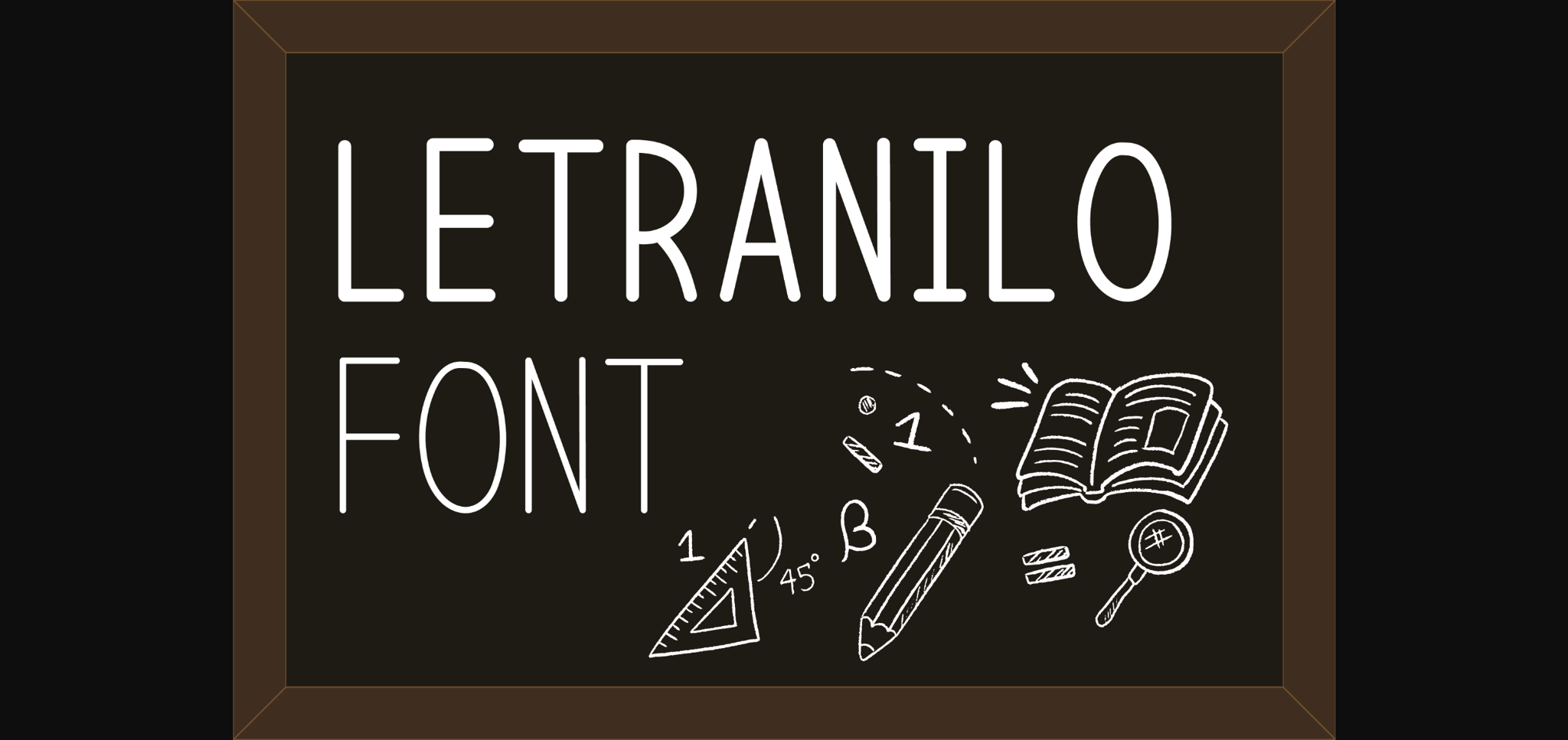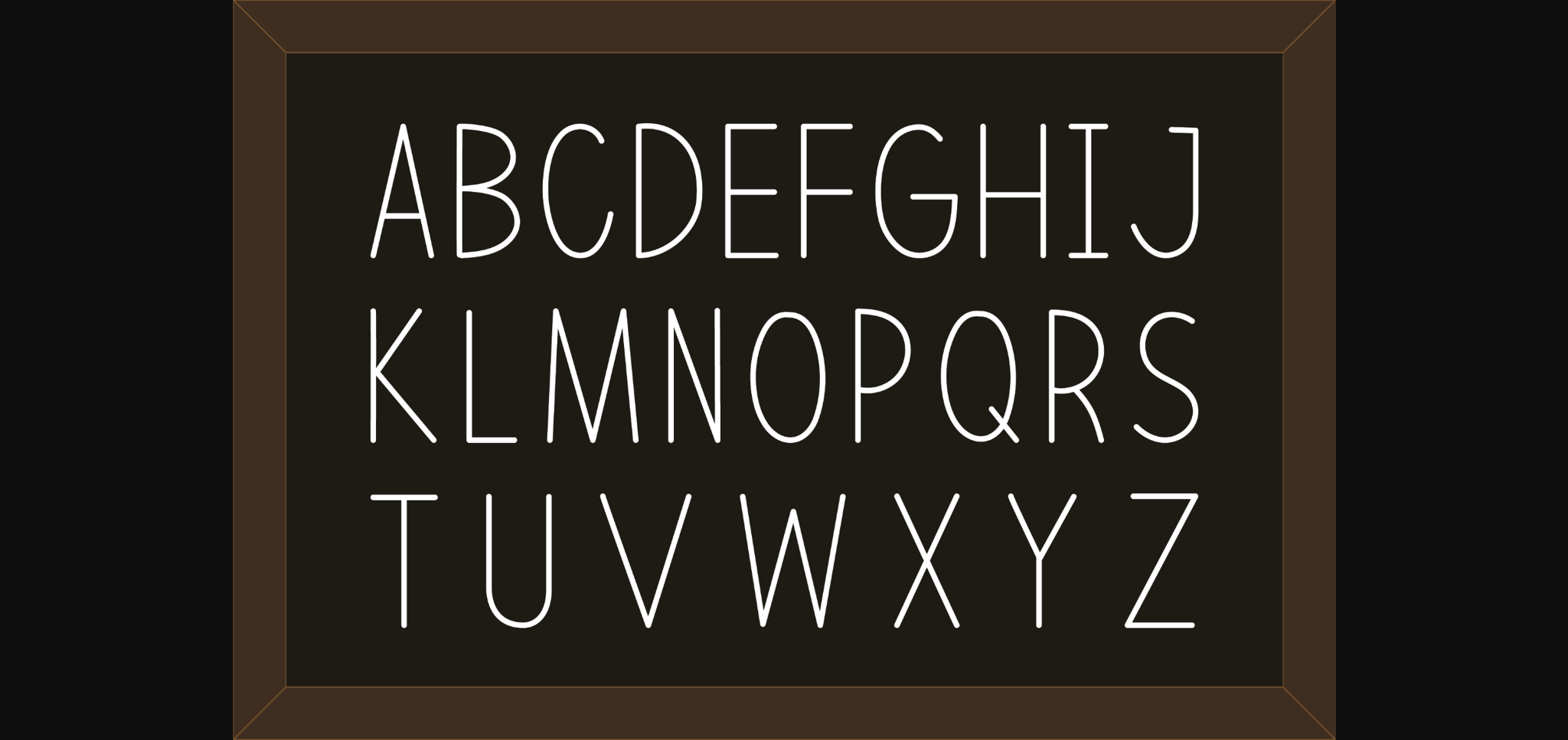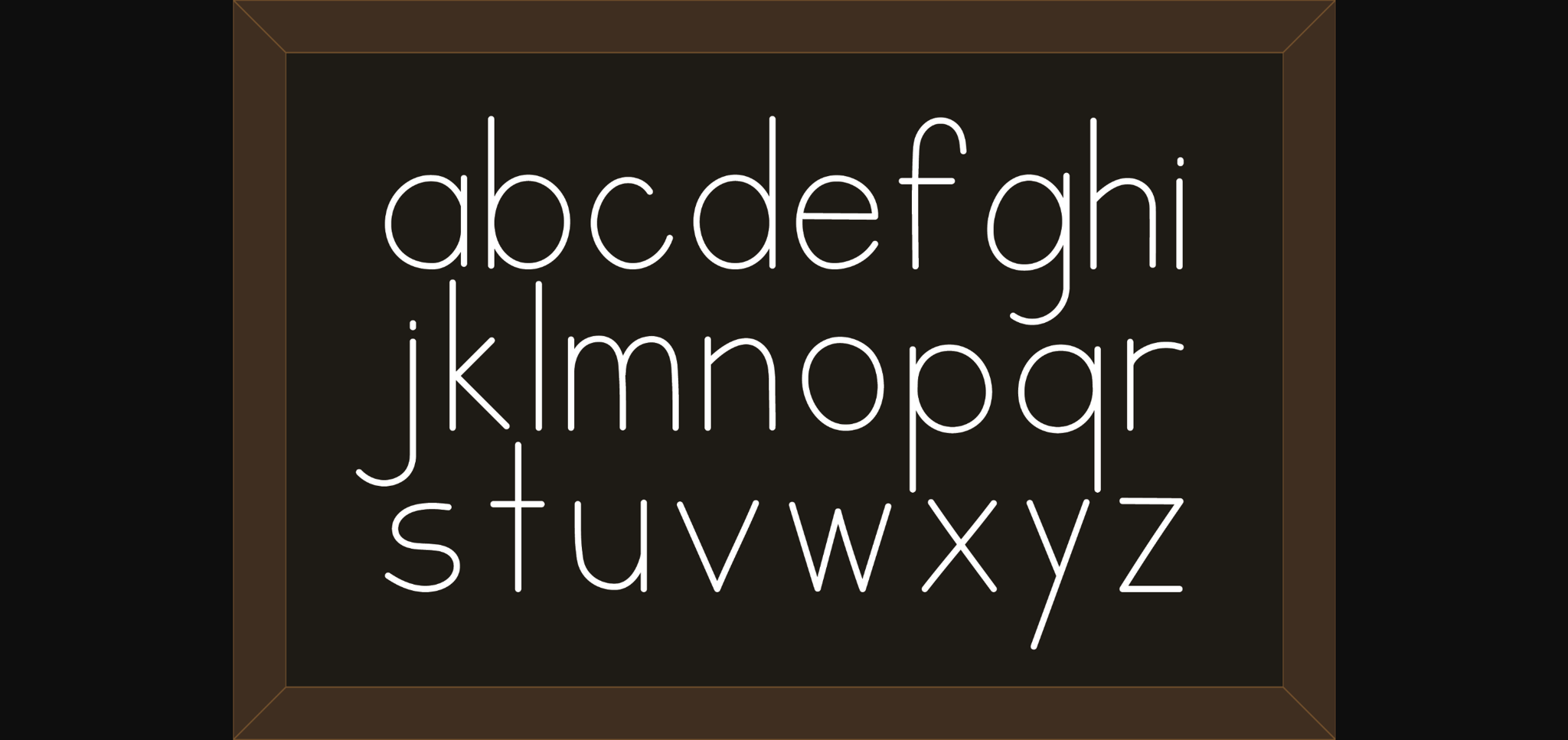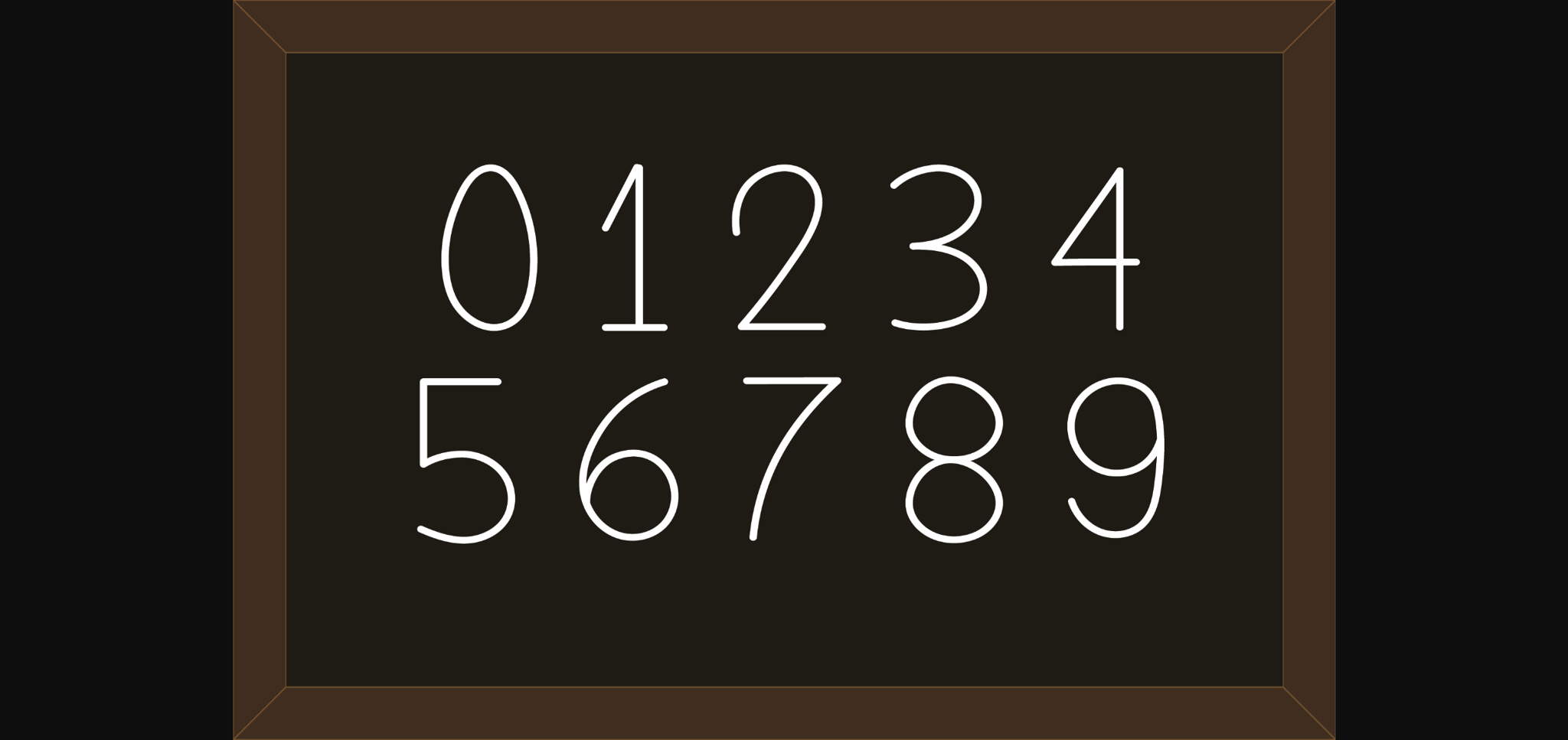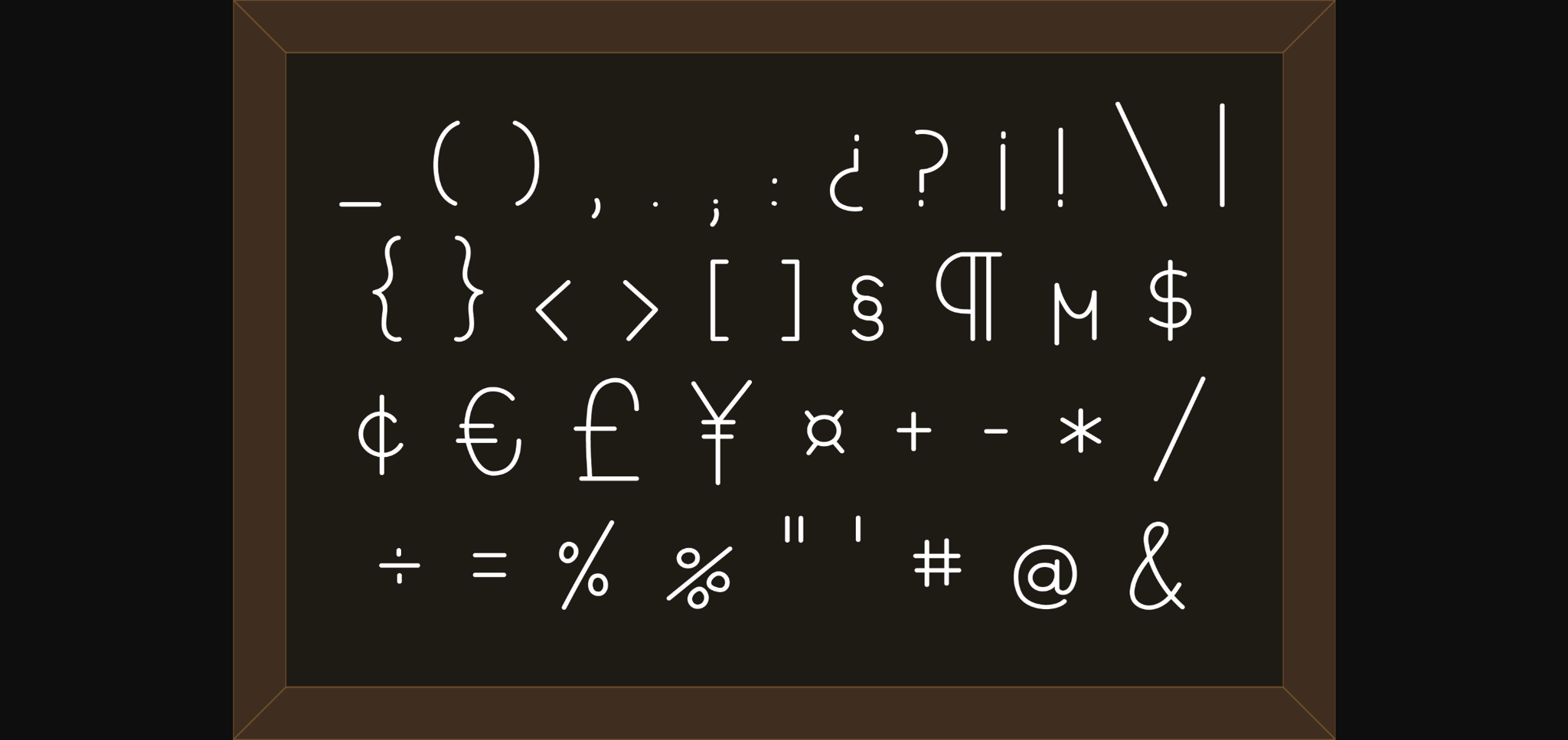
About Letranilo Font
Letranilo looks smart and clean and feels incredibly modern and light. This sans serif font will deliver any message with confidence and clarity!